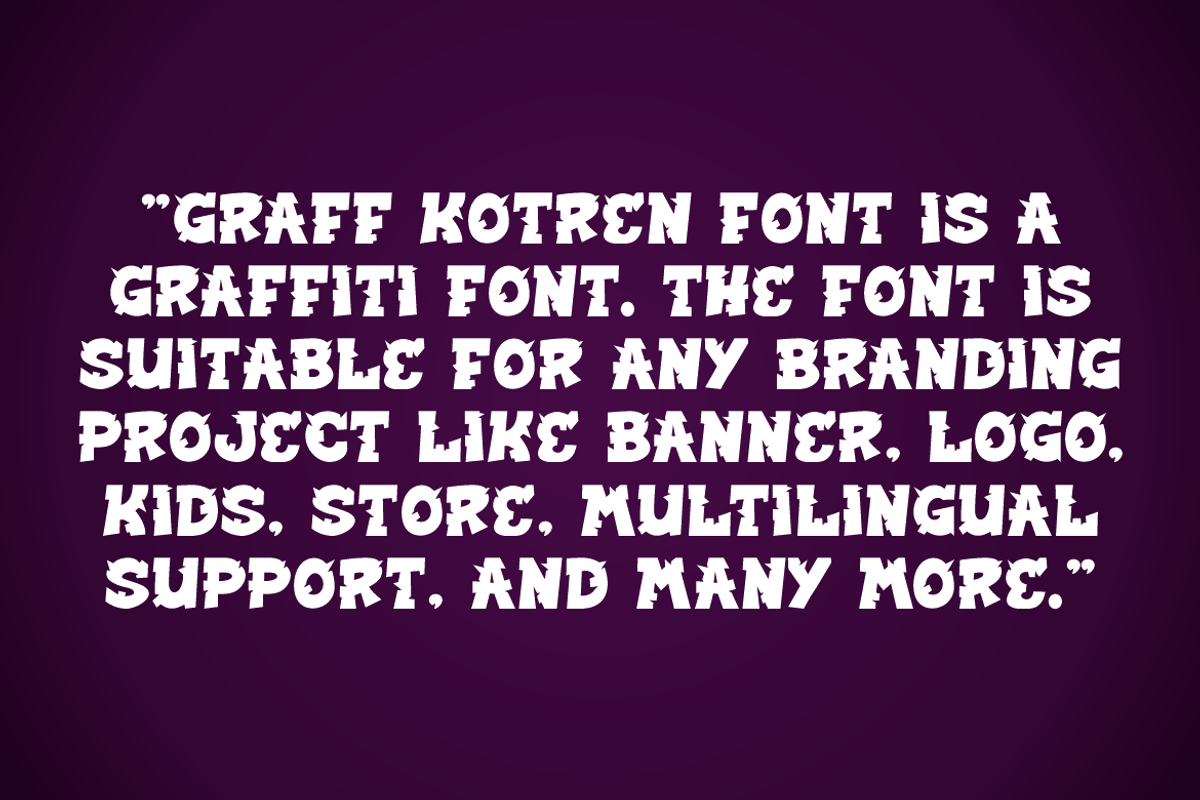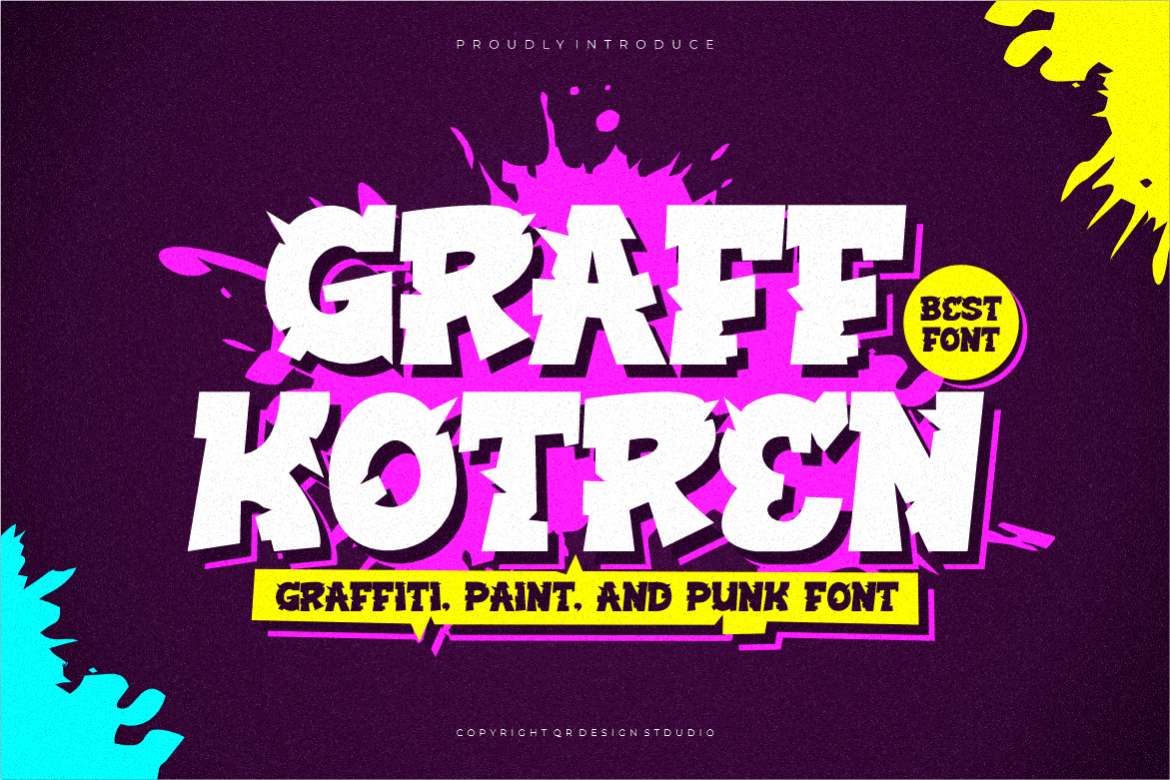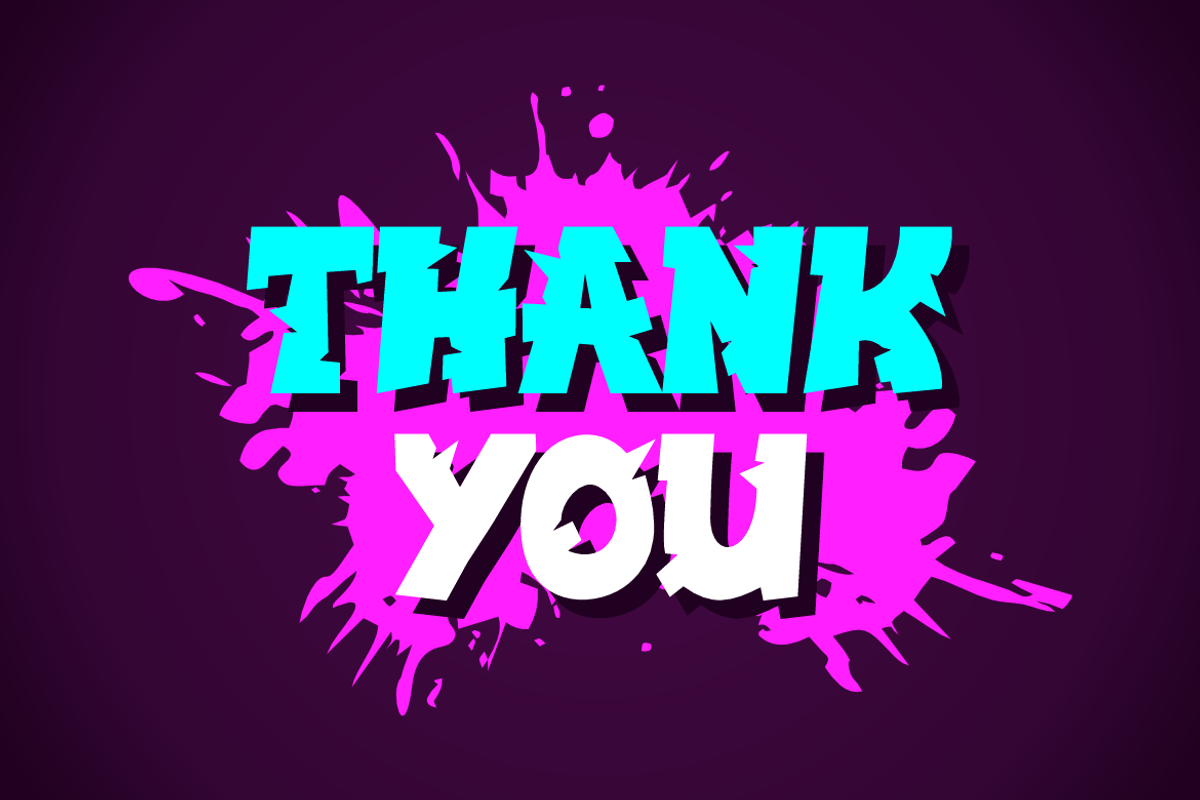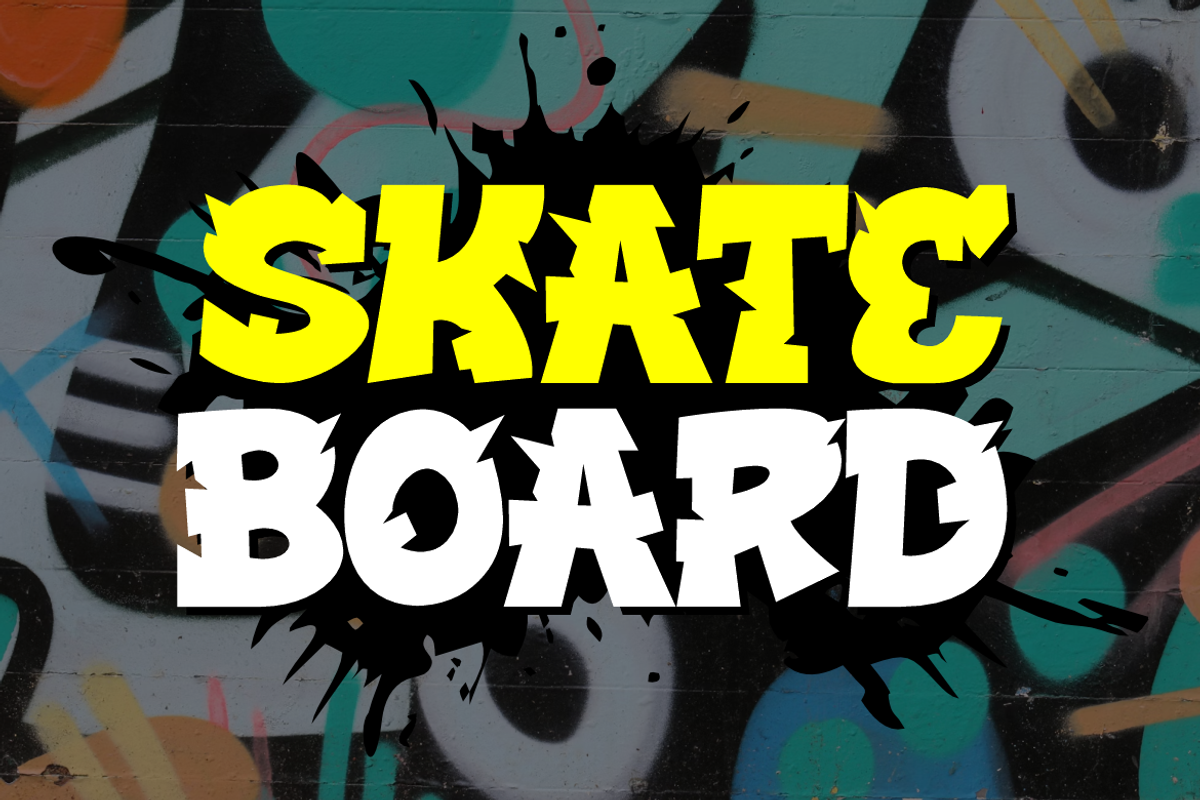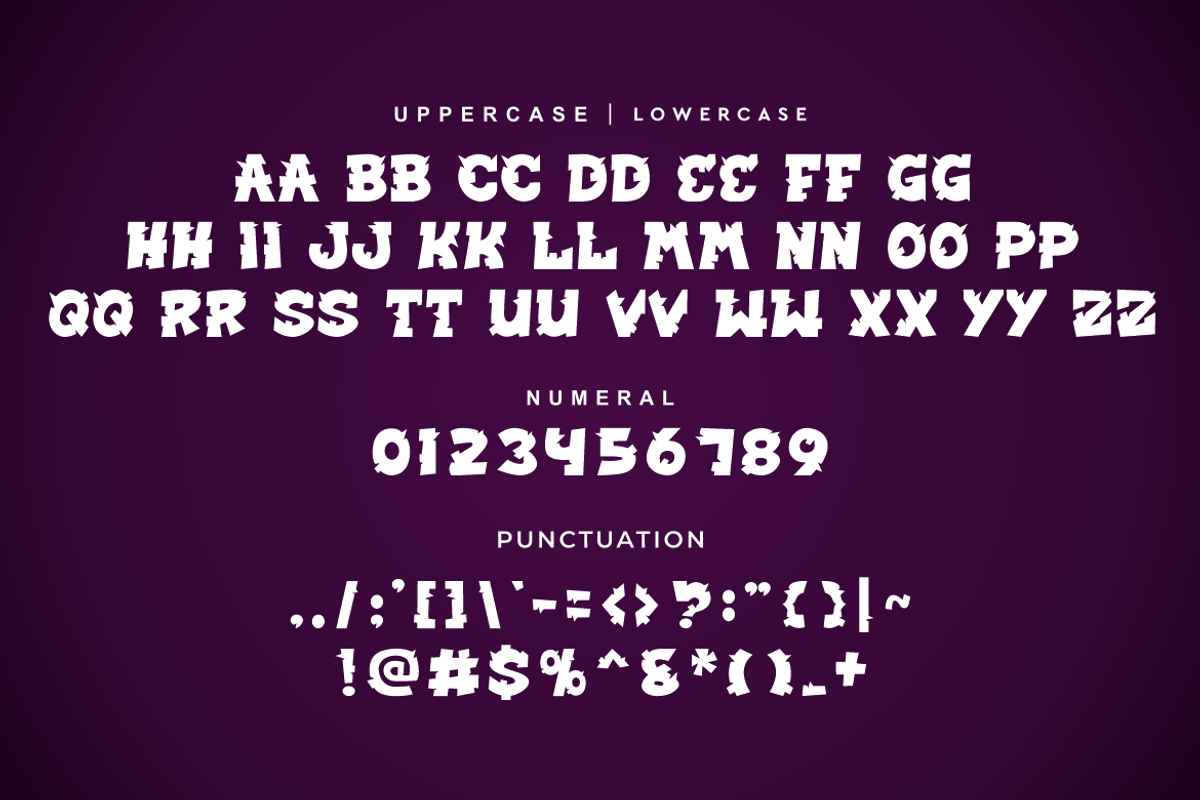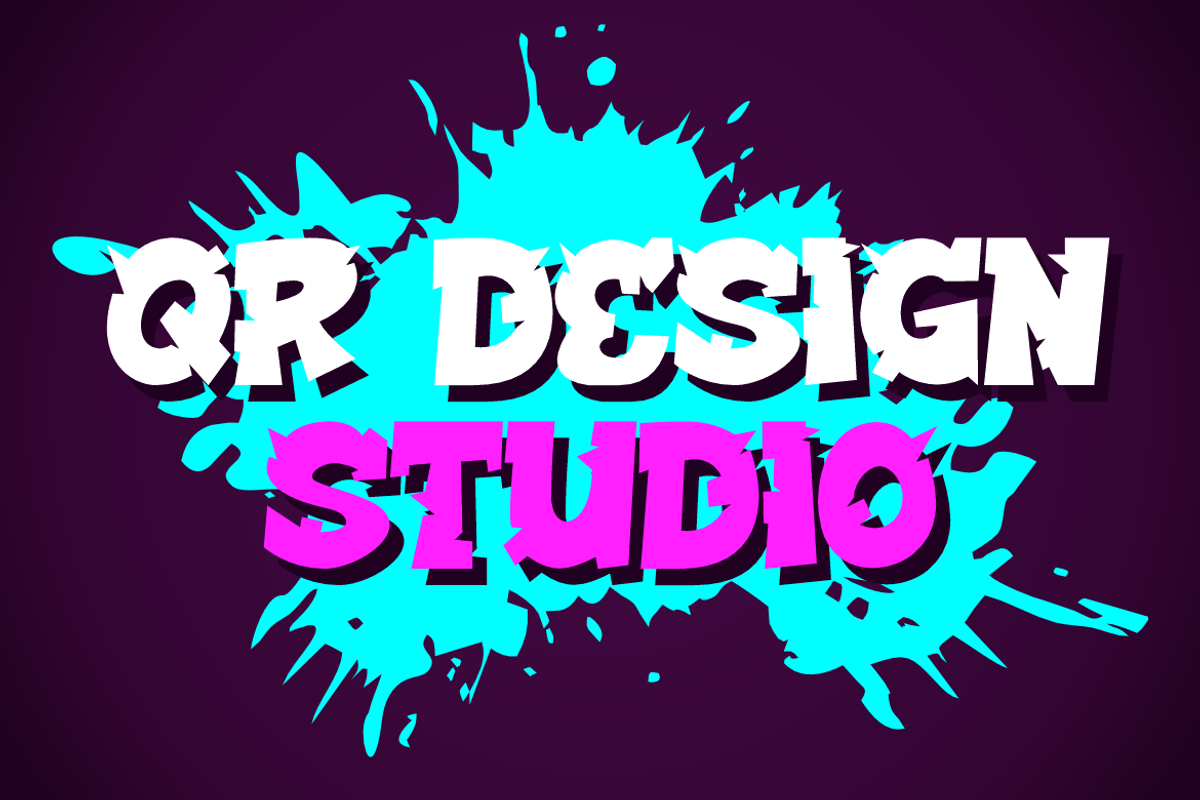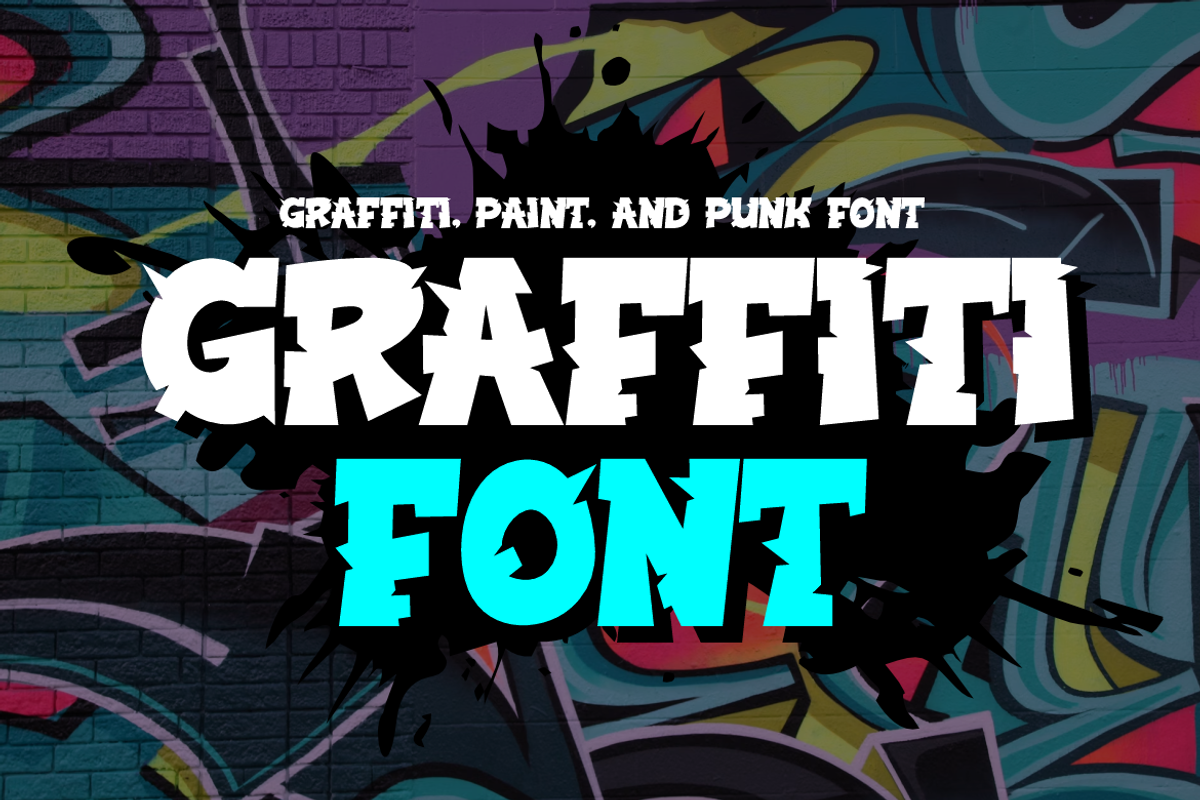
Graff Kotren - Paint & Graffiti Font
Graff Kotren Font is a graffiti and authentic display font. The font is suitable for any branding project like poster, logo, sport, and many more. Outstanding in a wide range of contexts.